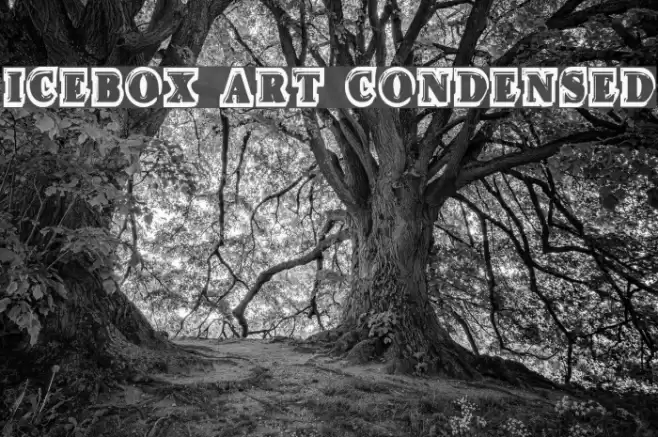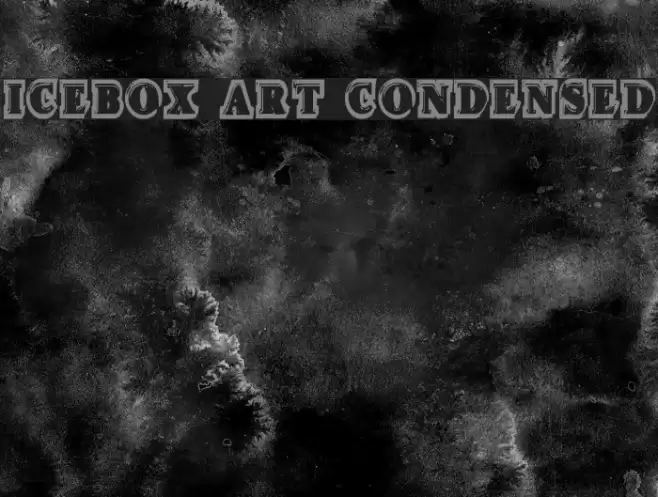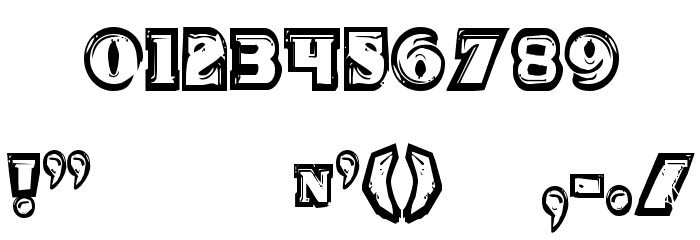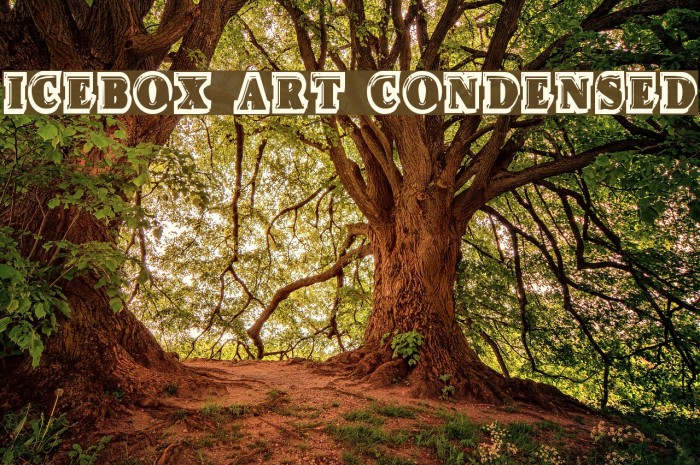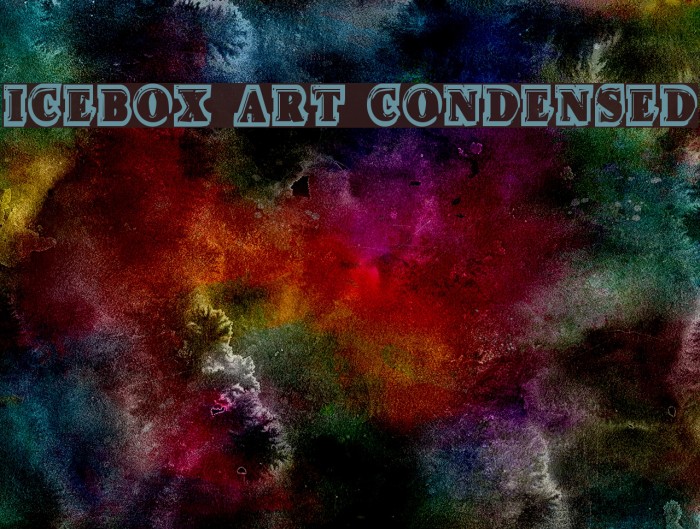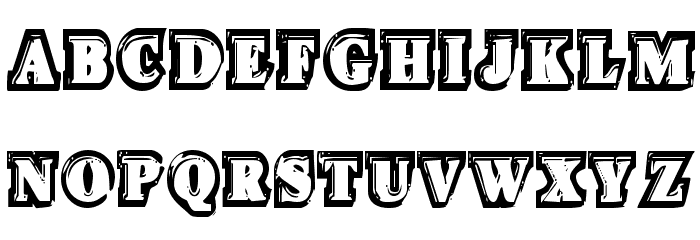
Icebox Art Condensed Font
Icebox Art Condensed Description
This font features a bold, condensed style with a distinct 3D effect, achieved through a shadowed outline that gives each character a sense of depth. The uppercase letters are particularly striking, with strong, angular lines that convey a sense of strength and stability. The lowercase letters maintain this boldness while offering a slightly more compact form. Numbers and special characters are designed with the same attention to detail, ensuring consistency across all glyphs. The font's unique style makes it ideal for projects that require a standout, eye-catching typeface.
A bold, condensed font with a 3D shadow effect, perfect for impactful designs from Fancy fonts.
- Proposed Projects: Ideal for posters, logos, headlines, and any design that requires a bold, attention-grabbing typeface.